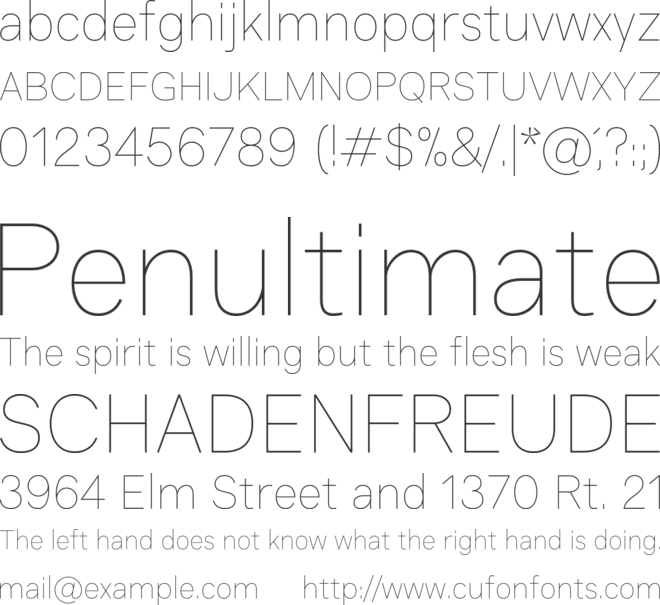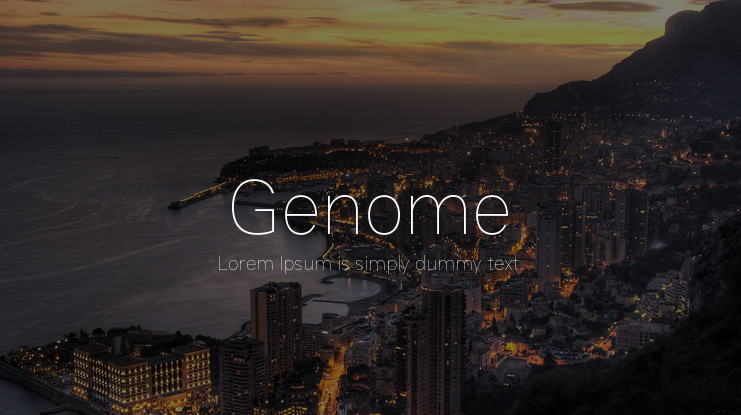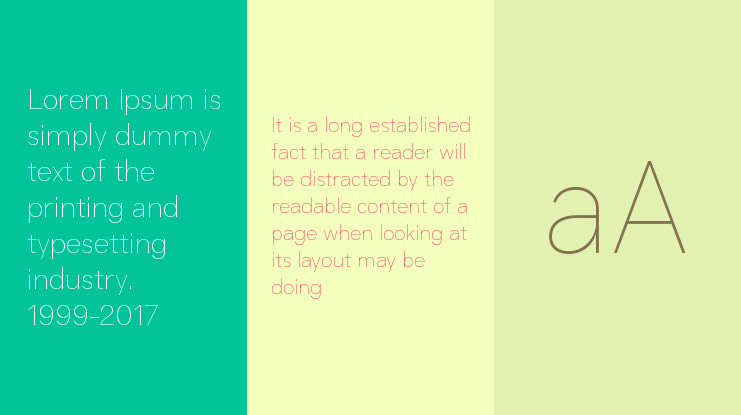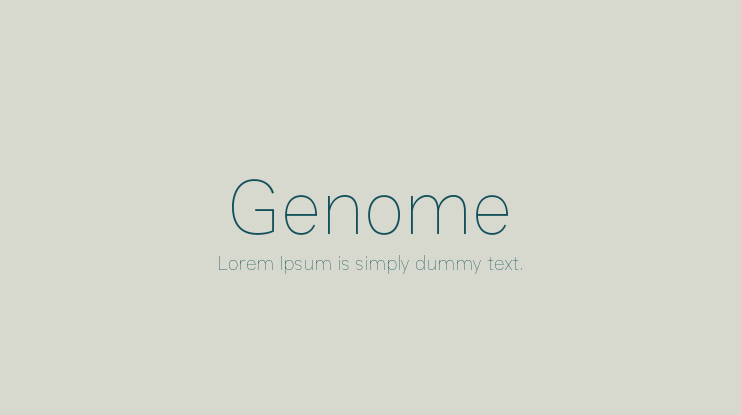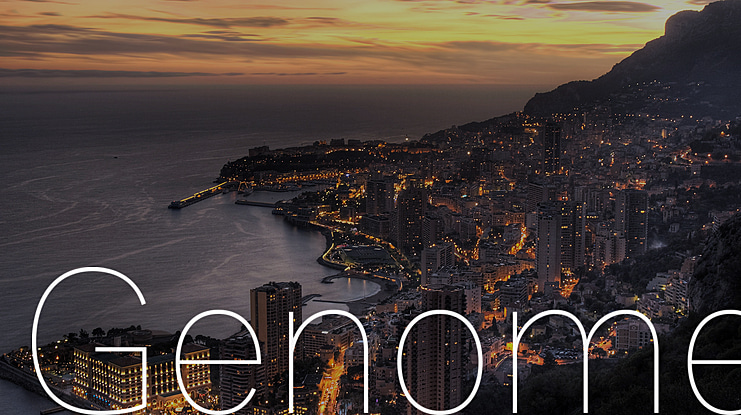
Genome is a clean typeface with proportions for increased readability on screen. Some have set it for print in the beta versions and proved to be usable. This typeface is open source (which means you can tweak, extend, subset — please read the Open Font License text) and free to use for personal and commercial projects.